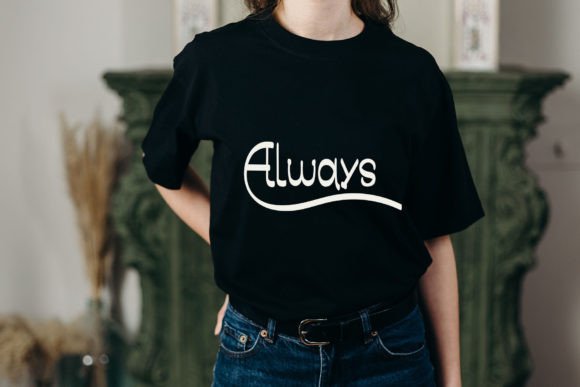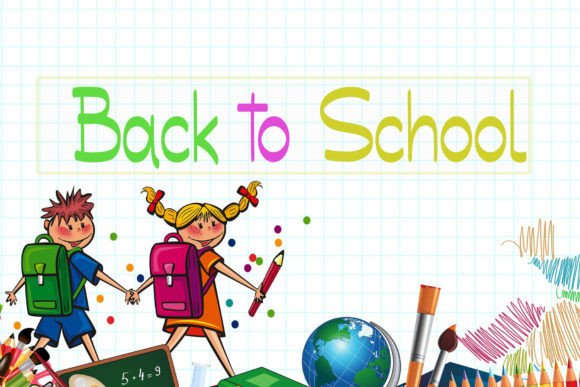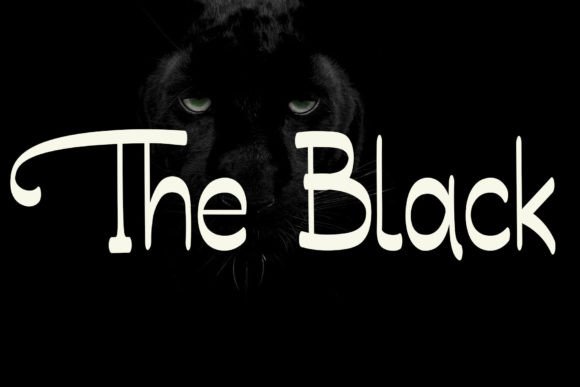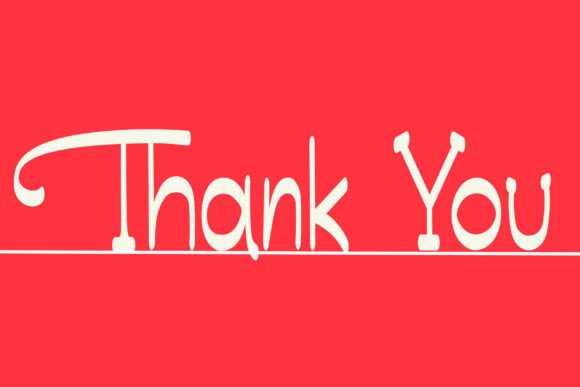
Introducing Always Together Font: Elevate Your Designs with Timeless Elegance
In the world of design, typography plays a crucial role in conveying the message and aesthetic of a project. For designers and crafters seeking a font that embodies both modernity and classic sophistication, the Always Together Font is an exceptional choice. This trendy handwritten font is inspired by timeless classic calligraphy, offering a contemporary atmosphere and impeccable form that can add elegance and class to any design project.
The Essence of Always Together Font
Always Together Font is a meticulously crafted typeface that draws inspiration from the elegance of traditional calligraphy. Its design is characterized by flowing lines, harmonious curves, and a sense of fluidity that gives it a distinctly modern yet timeless feel. This font is not just a collection of letters; it’s an expression of artistry and refinement, making it perfect for designers who aim to infuse their projects with a touch of sophistication.
Key Features of Always Together Font
- Trendy and Contemporary: Despite being inspired by classic calligraphy, Always Together Font boasts a contemporary vibe that fits well with current design trends.
- Handwritten Elegance: The font’s handwritten nature gives it a personal and intimate feel, making it suitable for projects that require a touch of warmth and authenticity.
- Versatility: Always Together Font can be used across a wide range of design projects, from branding and advertising to packaging and digital content.
- Impeccable Form: The font’s design is based on impeccable form, ensuring that it remains clear and legible across various sizes and applications.
Applications of Always Together Font
The versatility of Always Together Font makes it suitable for a myriad of design projects. Here are some ways you can utilize this elegant font:
- Branding and Logotypes: Create memorable brand identities with a font that exudes elegance and professionalism.
- Wedding and Event Invitations: Add a touch of sophistication and romance to your invitations and event materials.
- Packaging Design: Elevate your product packaging with a font that communicates luxury and quality.
- Digital Content: Use Always Together Font in your website designs, social media graphics, and digital marketing materials to stand out.
Why Choose Always Together Font?
In a sea of fonts, Always Together Font stands out for its unique blend of classic inspiration and modern appeal. Here are a few reasons why designers and crafters are gravitating towards this font:
- Unique Aesthetic: The font offers a distinctive look that can help your designs stand out from the crowd.
- Easy to Read: Despite its elegant and cursive nature, Always Together Font remains highly legible, making it practical for a wide range of applications.
- Time-Saving: With its comprehensive set of characters and styles, you can complete your design projects more efficiently.
Always Together Font is a remarkable addition to the world of typography, offering designers and crafters a tool to create stunning, elegant designs. Its blend of timeless classic calligraphy and contemporary flair makes it an invaluable asset for anyone looking to add a touch of sophistication to their projects. Whether you’re working on branding, packaging, digital content, or any other design project, Always Together Font is sure to exceed your expectations.
Embrace the elegance and class that Always Together Font brings to the table, and elevate your designs to new heights of creativity and professionalism.